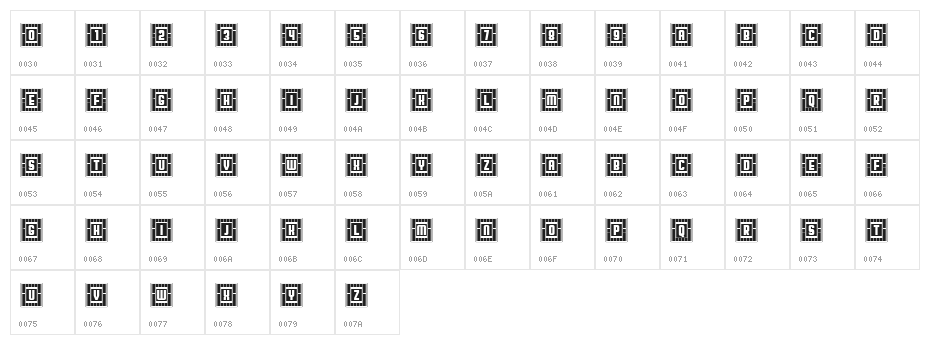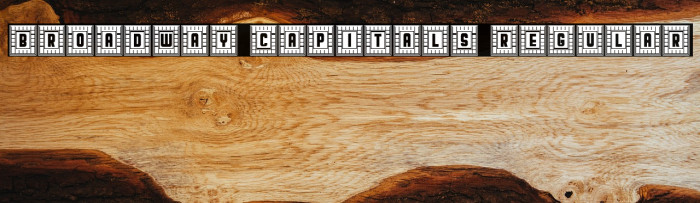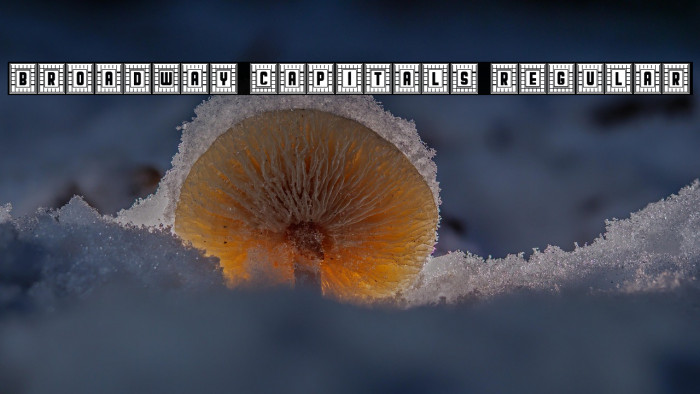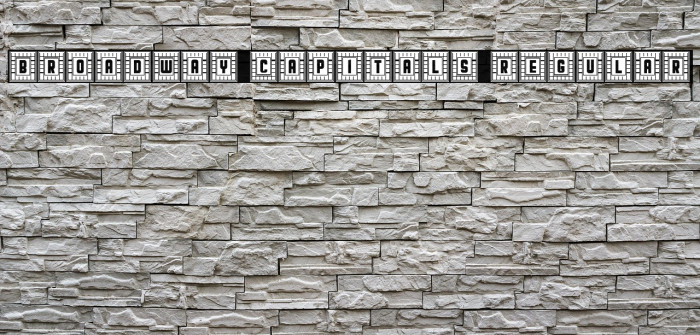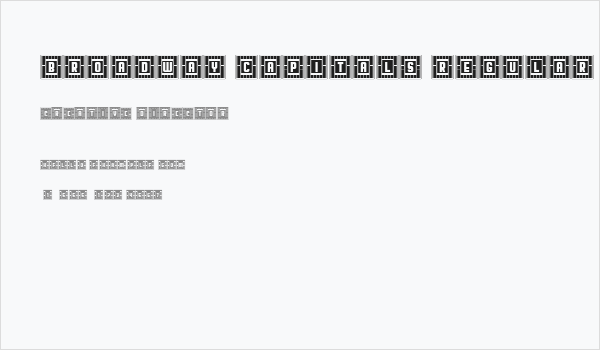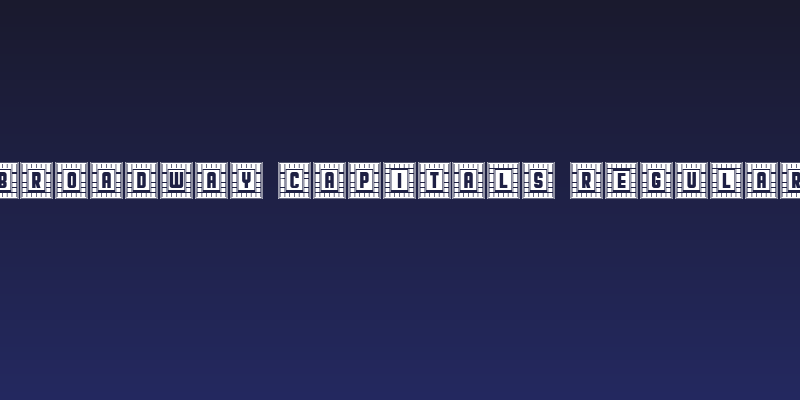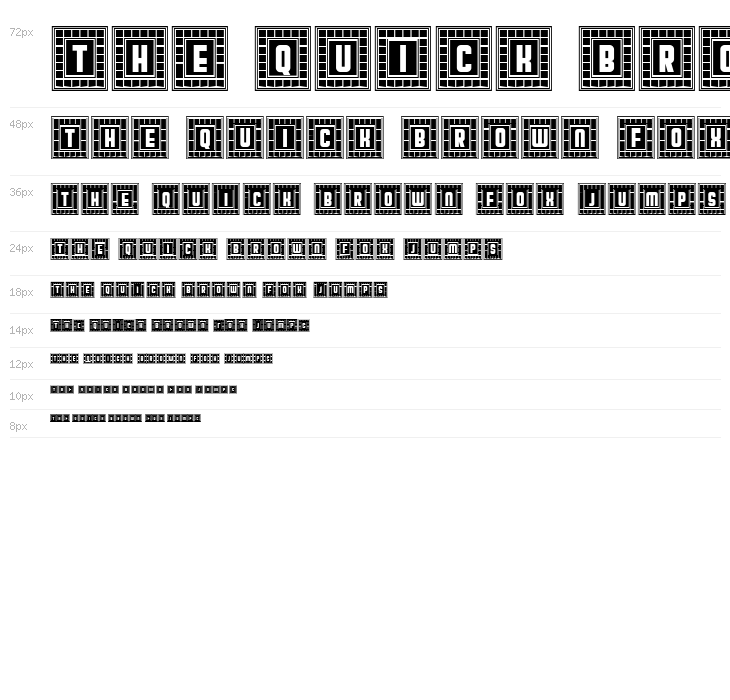
Broadway Capitals Regular Font
Broadway Capitals Regular Description
This font features a bold and decorative style with a theatrical flair, reminiscent of vintage marquee signs. Each character is enclosed in a square frame with a patterned border, adding a unique and eye-catching element. The letters are uppercase and have a strong, geometric form, making them stand out prominently. The numbers and special characters follow the same design, ensuring consistency across all elements. This font is perfect for creating a dramatic and nostalgic atmosphere, ideal for projects that require a touch of retro glamour.
| Use Case | Headlines, Logos, Signage |
| Proposed Projects | Ideal for theater posters, vintage-themed events, signage, and any project needing a dramatic, retro touch. |